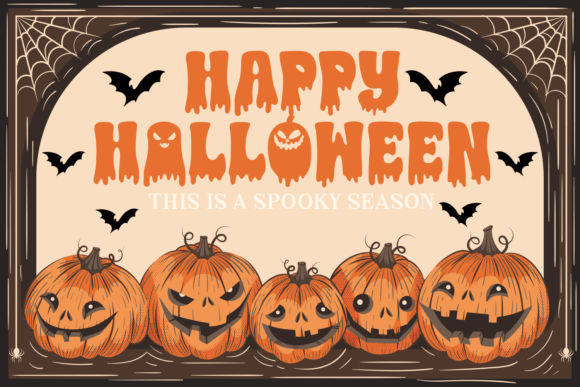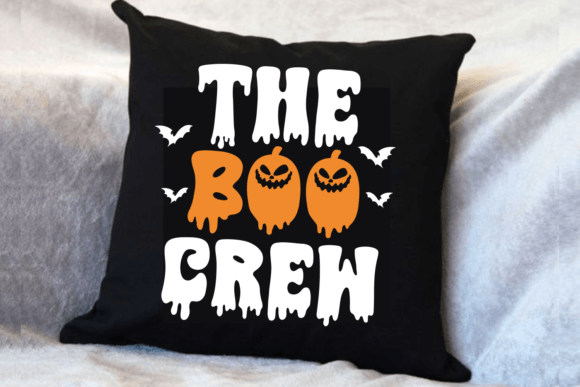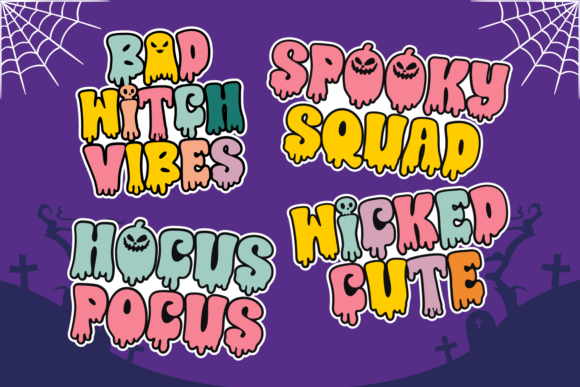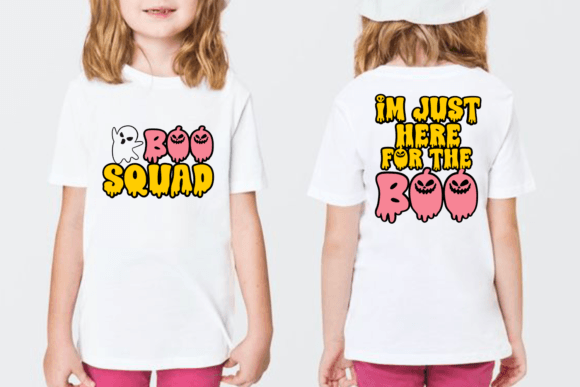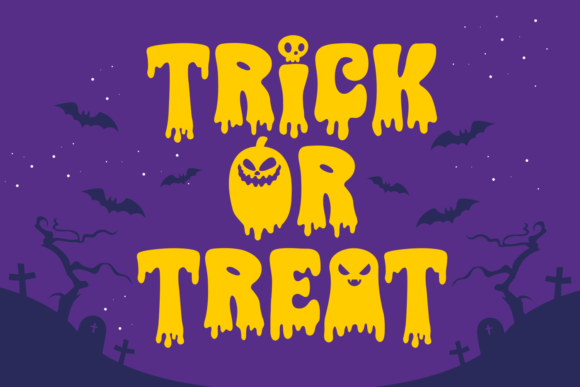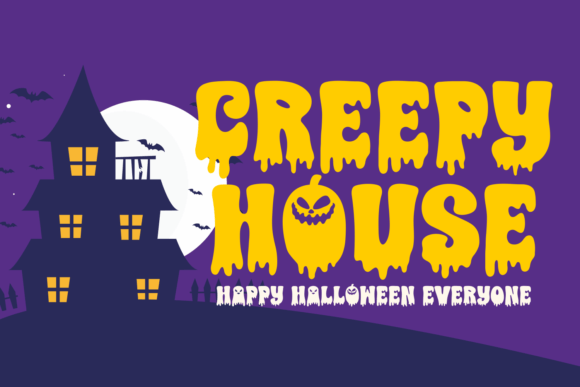
The Spooky-ooky World of Ghost Party Font
Have you ever been in the middle of a design project, and suddenly, it feels like something’s missing? You’re staring at your canvas, trying to figure out what’s not quite right. And then, it hits you – the font! You need a font that screams bold, daring, and a bit quirky. For me, that font is Ghost Party. It’s a spooky and quirky display font that’s been a game-changer in my design journey.
My First Encounter with Ghost Party
I recall working on a Halloween-themed project for a client who wanted something that would make their party invites stand out. I scoured through my font library, but nothing seemed quite right. That’s when I stumbled upon Ghost Party. Its bold, eye-catching design immediately caught my attention. I knew right then and there that it was the perfect fit for the project.
An Honest Review of Ghost Party Font
- ✨ Unique and quirky design that adds a touch of personality to any project
- ✅ Perfect for display text, such as titles, headings, and party invites
- 💥 Great for creating a bold statement in your designs
- 🎃 Seasonal and versatile – use it for Halloween-themed projects or any design that needs a spooky touch
While Ghost Party is an amazing font, there are a few things to keep in mind:
- 🤔 Legibility at small sizes – Ghost Party is best used at larger sizes (30px and above) to ensure readability
- ⚠️ Overuse can be overwhelming – use it sparingly to avoid overwhelming your design
Ghost Party comes with a range of OpenType features and glyphs that can enhance your designs. Look for:
- Stylistic alternates to give your text a unique twist
- Swashes and ornaments to add decorative touches
- Glyphs and ligatures to create interesting text combinations
The Backstory of Ghost Party Font
Ghost Party was designed by a creative team that wanted to capture the essence of spooky fun. Inspired by haunted houses, creepy crawlies, and mischievous ghosts, they crafted a font that’s both eerie and playful. The result is a font that’s perfect for designers, crafters, and creative hobbyists looking to add a touch of whimsy to their projects.
Q: Is Ghost Party suitable for body text?
A: No, Ghost Party is best used for display text, such as titles and headings. Its bold design can be overwhelming for body text.